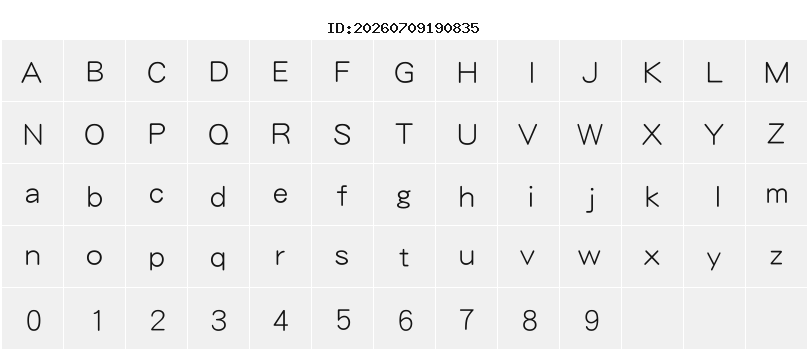
DFPYuanLight-B5 Preview
• Font Name: DFPYuanLight-B5
About DFPYuanLight-B5.ttf
DFPYuanLight-B5.ttf is a modern, elegant sans-serif font designed for ultimate readability and visual harmony. Perfect for branding, headlines, web design, and print materials.